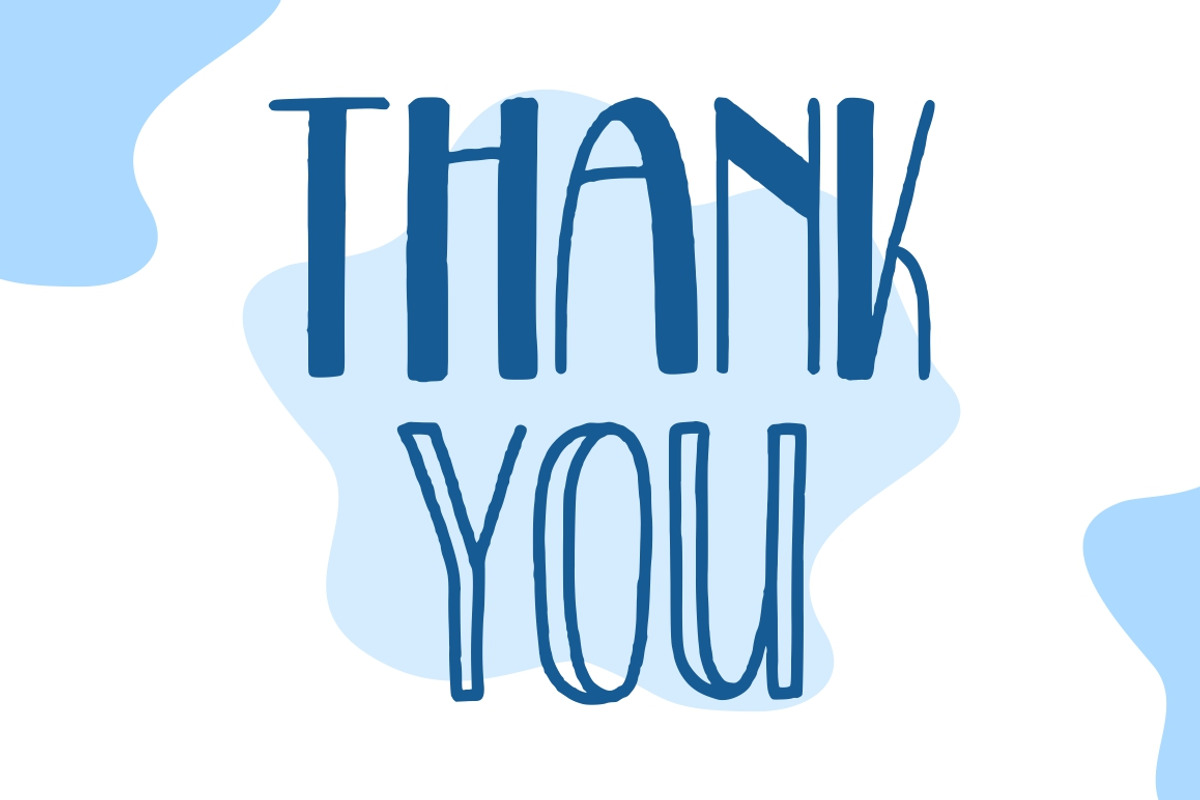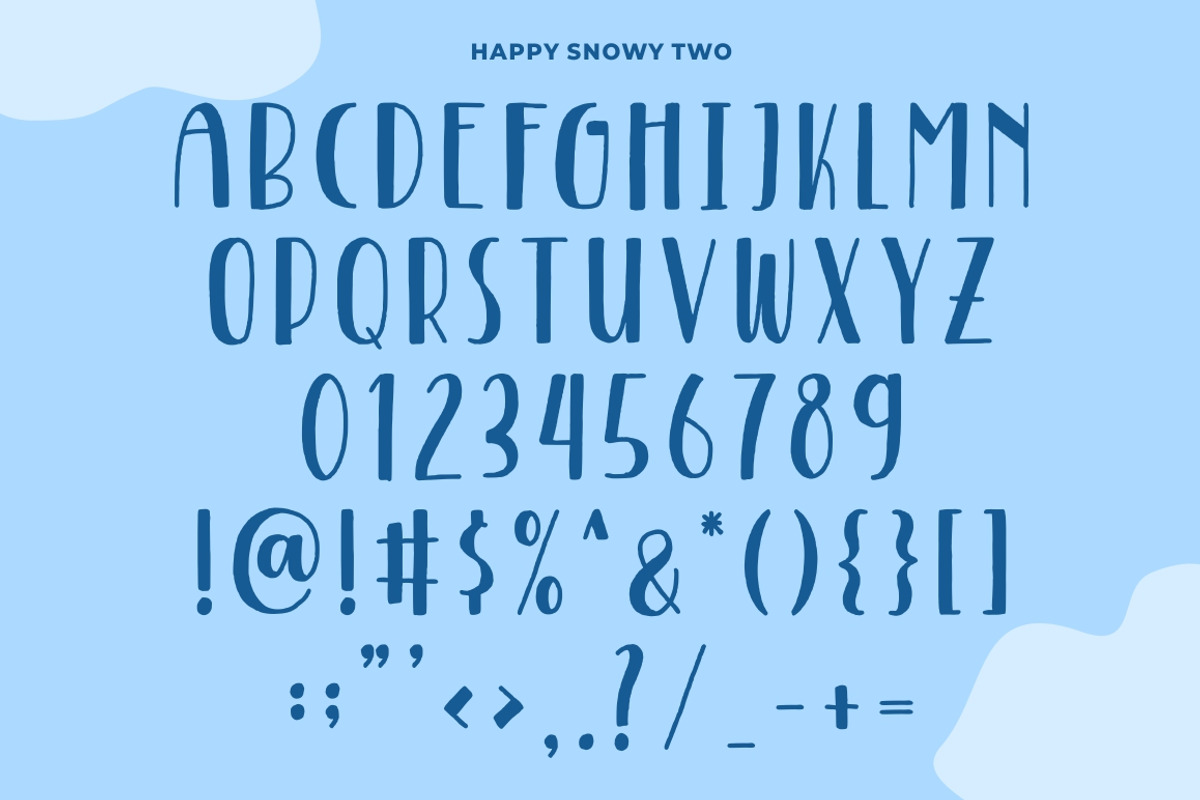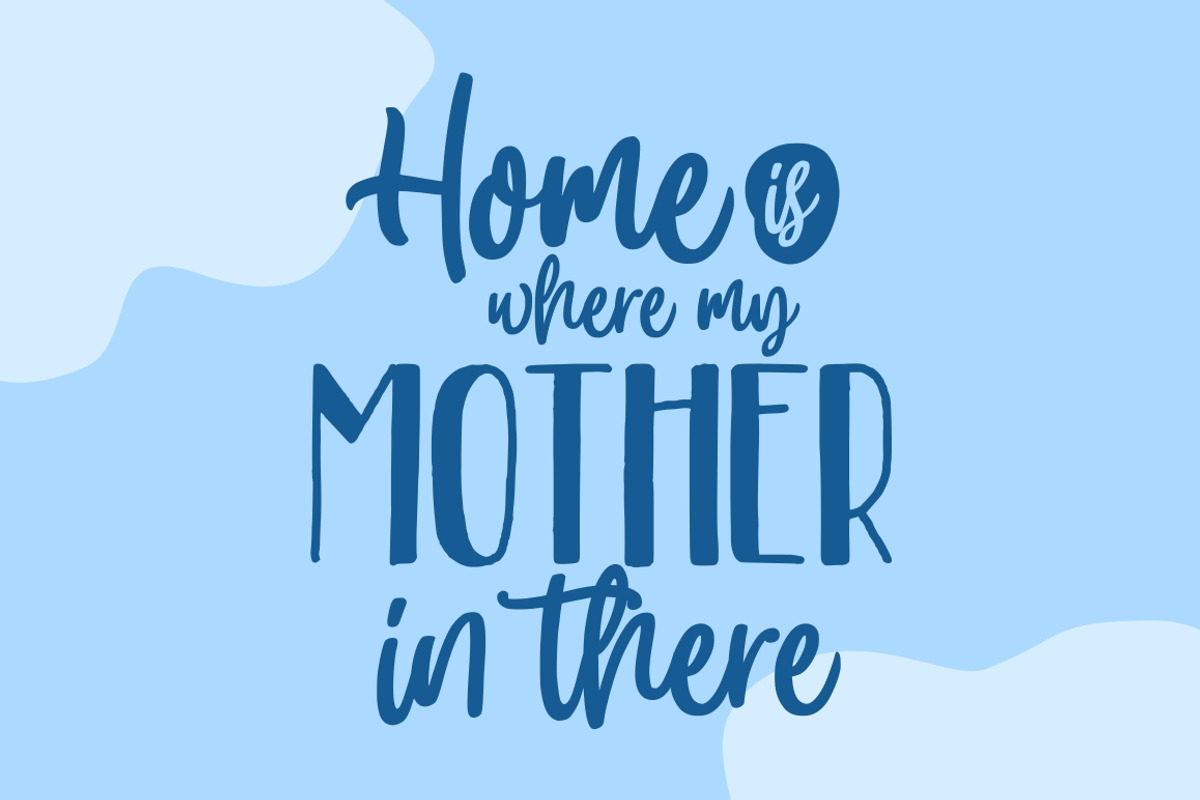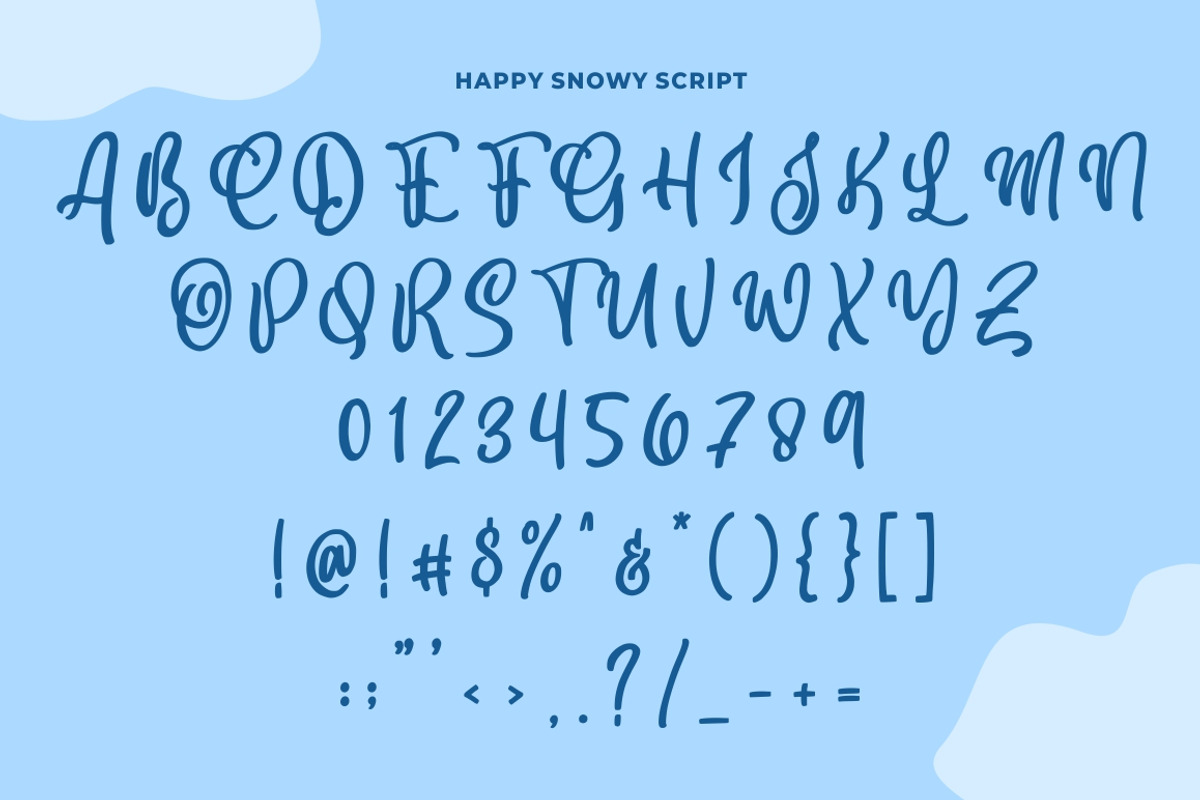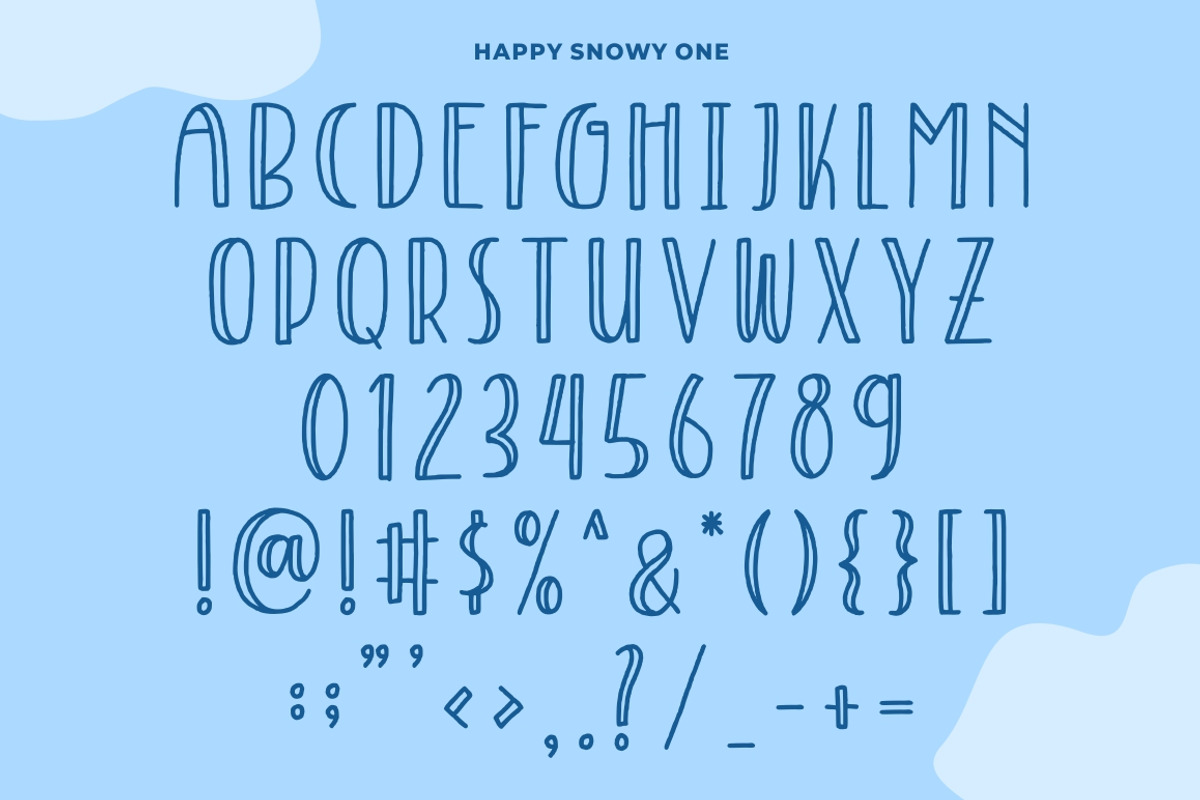
Happy Snowy - Font Trio
Introducing: Happy Snowy
Happy Snowy is funny handlettering font make from handlettering ideas in typeface. This font includes full of Alphabetical glyphs, Numerals, and punctuation. This is so perfect for invitations, monograms, wedding, fashion, branding, label, handlettering or logotype.
Trio font: Happy Snowy One, Happy Snowy Two, and Happy Snowy Script
Very great for branding, logotype, handletteing, invitations, or fashion branding.
- This font includes full of Alphabetical glyphs, Numerals, and punctuation.
Why Happy Snowy - Font Trio is worth a look
Happy Snowy - Font Trio by Good Java Studio fits naturally into Branding, posters, packaging, typography.